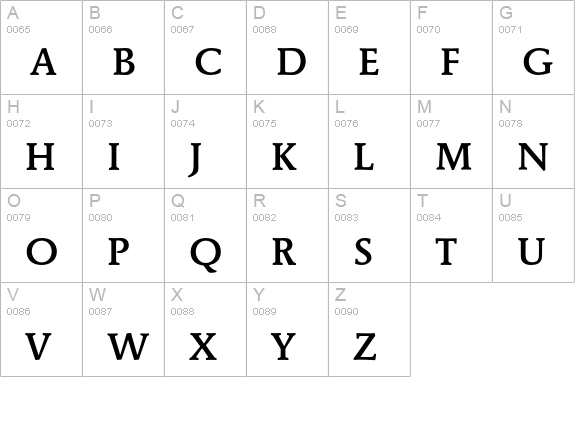
MendozaEF-MediumSC is a sophisticated and elegant font that exudes a sense of modernity and style. With its medium weight and subtle curves, this font is perfect for adding a touch of sophistication to any design project. The clean lines and balanced proportions of MendozaEF-MediumSC make it versatile and suitable for a wide range of applications, from branding to editorial design. The best part about MendozaEF-MediumSC is that it is completely free to download at FontsMarket.com. This means you can easily access and use this beautiful font in your projects without any cost. Whether you're working on a professional presentation, a creative branding project, or simply want to elevate your personal designs, MendozaEF-MediumSC is the perfect choice. Don't miss out on the opportunity to enhance your designs with this stunning font. Download MendozaEF-MediumSC for free today and elevate your projects with its timeless appeal and contemporary flair.